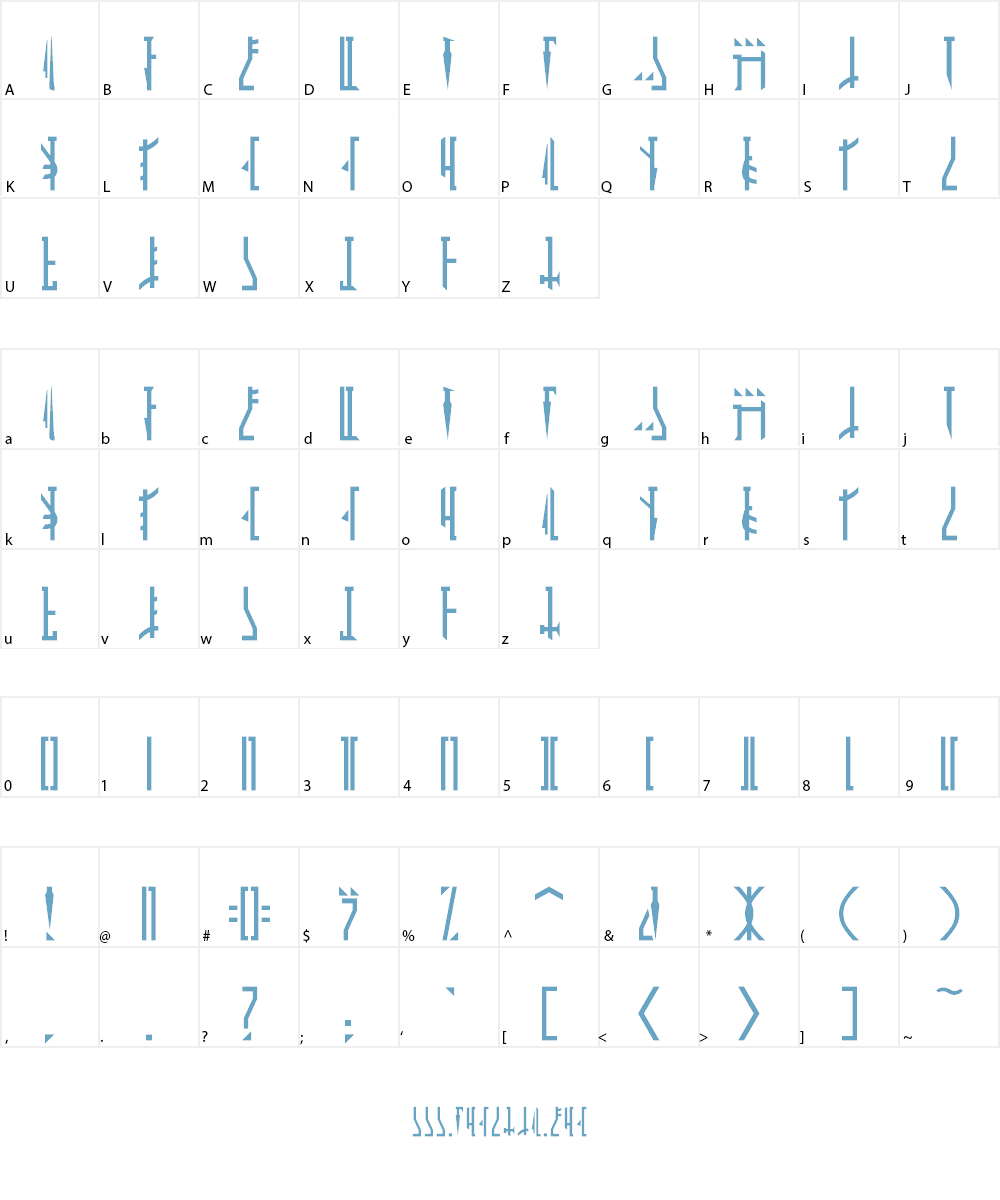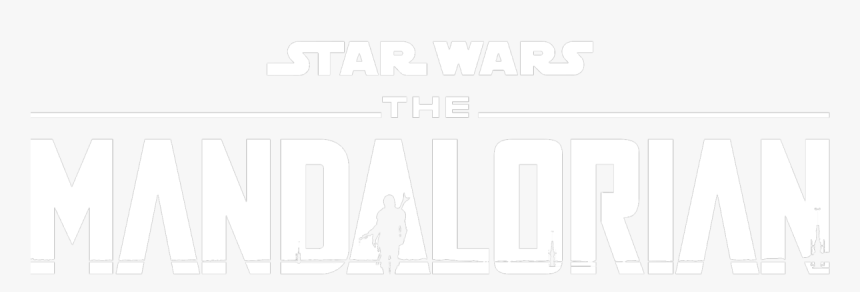
The Mandalorian Font Free
Mandalorian font is a logo font that we have seen in the mandalorian title.
The mandalorian font free. You can download it for free here. Mandalore by iconian fonts is a free font that resembles the lettering. The mandalorian is an american space western web television series that premiered on disney on november 12 2019.
The main part of the logo was probably designed based on font bureaus agency black. About the mandalorian font. Mandalorian font free download.